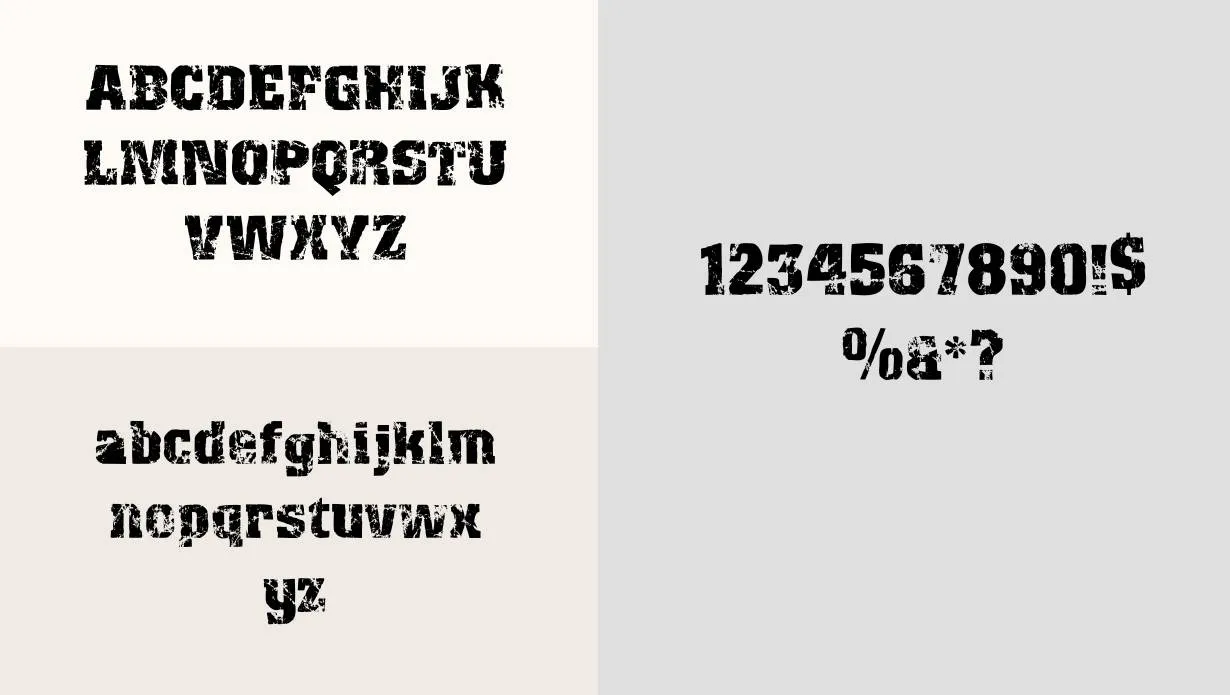
The distressed font resembles a seasoned storyteller, giving your words an air of adventure and history. It imparts a sense of resilience and strength, much like a well-loved book that has weathered challenges.
It’s for those who want their words to carry a tale of resilience and wisdom.
The distress font adds character to your text, as if each word has its own unique story to tell, etched with the marks of time.
| Name | Distress Font |
| Designer | Douglas Vitkauskas |